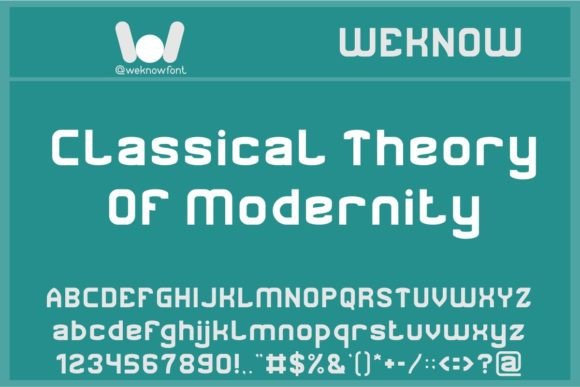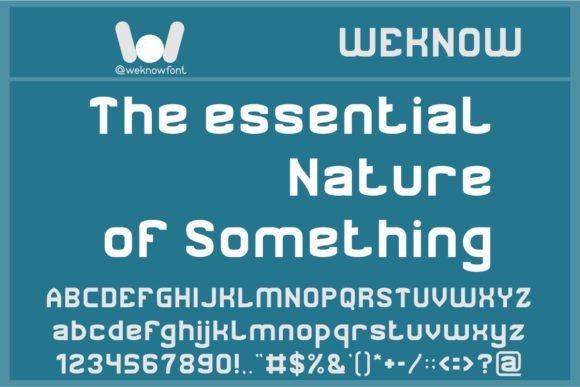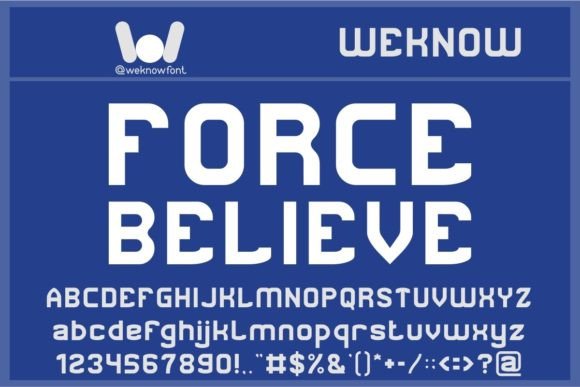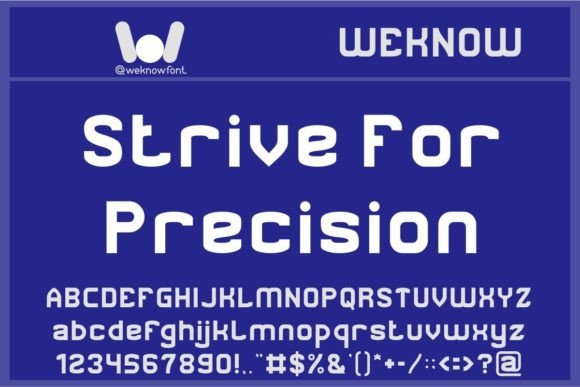
The Font that Defines Your Vision
There’s nothing quite like the rush of creative excitement when a new idea strikes. You envision a bold logo, a striking headline, or a captivating brand identity that sets your project apart from the rest. For designers, this moment is the spark that ignites the entire creative process. But, bringing your vision to life requires the right tools – and that’s where By Definition Font comes in.
This basic sans serif font is the perfect companion for any design project. From logos and logotypes to headlines and corporate identities, By Definition Font is versatile and easy to use. What makes it truly valuable for designers is its simplicity and adaptability, making it a go-to choice for a wide range of creative projects. Whether you’re working on a poster, a magazine, or a website, By Definition Font is the perfect choice to bring your vision to life.
By Definition Font Key Features
- Unique Characteristics: The font features a unique blend of modern and vintage elements, with intricate details and subtle texture, adding a touch of sophistication to any design.
- Font Style: By Definition Font offers a range of font styles, including Regular, Bold, Italic, and Bold Italic, allowing designers to create a variety of visual effects.
- Language Support: The font supports a wide range of languages, including Latin, Cyrillic, and Greek, making it suitable for international applications.
By Definition Font Review
By Definition Font is an impressive addition to any designer’s toolkit. Here’s what works well: ✨ The font’s modern design aesthetic is sure to appeal to those looking for a clean and minimalist look. ✨ The extensive character set is perfect for designers who need to work with non-English scripts. ✨ The font’s versatility makes it suitable for both digital and print media.
While By Definition Font excels in many areas, there are some limitations to consider: ⚠️ The font may not be as versatile as some other options when it comes to bold and italic weights. ⚠️ Some users may find the font’s design too simple, lacking the nuance of more complex fonts. ⚠️ The font’s price point may be out of reach for some designers or studios with limited budgets.
Overall, I’m impressed with By Definition Font’s quality and versatility. While it may not be the perfect choice for every project, it’s certainly worth considering for those looking for a modern and clean font. With a bit more development to address its limitations, I think By Definition Font has the potential to become a go-to font for designers.
Pros and Cons:
- ✨ Modern design aesthetic
- ✨ Extensive character set
- ✨ Versatile for digital and print media
- ⚠️ Limited bold and italic weights
- ⚠️ Simple design may not appeal to all
The By Definition Font is ideal for:
- Creating eye-catching headlines and titles.
- Adding a touch of elegance to wedding invitations and event materials.
- Designing modern and minimalist business cards and brochures.
For optimal results, use the By Definition Font in combination with a clean and simple design aesthetic.